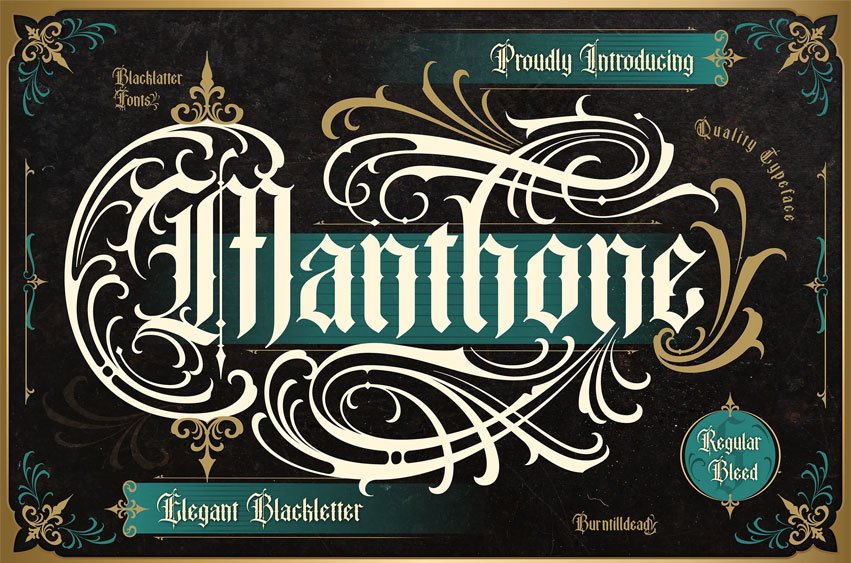
Manthone Font is an elegant and ornamental blackletter font. A beautiful blend of classic European forms and modern editorial style. Designed with strong letterforms and sharp angles, this font stays readable even for longer texts. Manthone brings a majestic and timeless feel, perfect for designs that aim for a “luxury meets vintage” aesthetic.
It belongs to the gothic family, but with a refined tone that makes it versatile for many design styles. Ideal for tattoo designs, packaging, heritage branding, magazine headlines, and music posters.